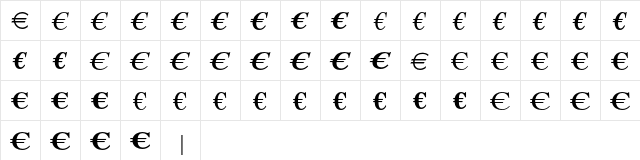
EuroSerifEF Two
Design Context for EuroSerifEF Typeface
EuroSerifEF brings classic typographic sensibility to the table — its serifs and measured letterforms reflect centuries of print heritage.
Pro Tip: Use EuroSerifEF for editorial body copy and considered headline work. Pair with a neutral sans for UI elements or captions to create a classic hierarchy.